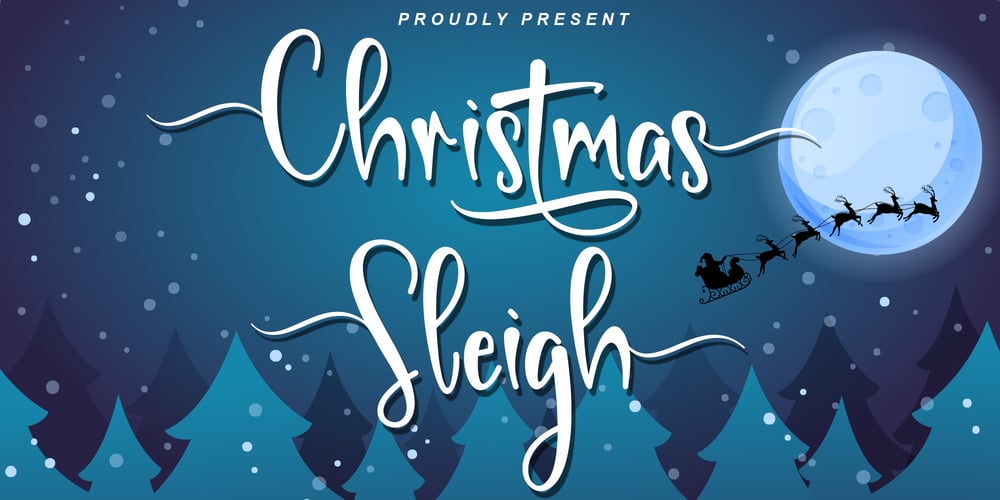
Christmas Sleigh
Christmas Sleigh font
Christmas Sleigh Font Family was designed by Harjuno Kristanto and published by Arkrist Letter. Christmas Sleigh contains 1 styles and family package options. Christmas Sleigh is a lovely handwritten font inspired by a festive, modern, and elegant Christmas party.Christmas Sleigh is perfect for invitations, greeting cards, t-shirt designs, product designs, etc.Let’s celebrate Christmas with the Christmas Sleigh font, and make your Christmas even more festive!This font is PUA encoded, which means you can access all of the glyphs and swashes with ease!